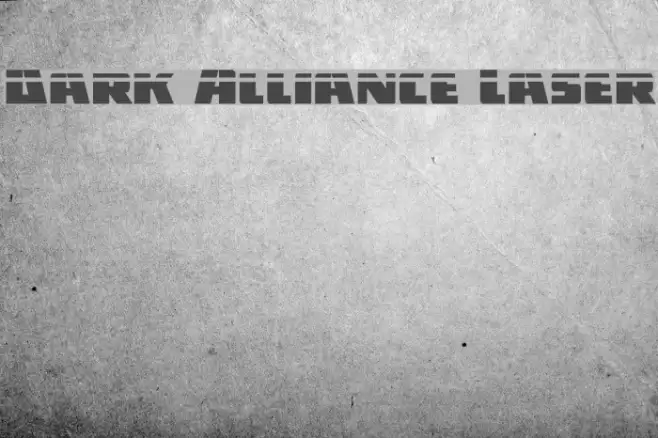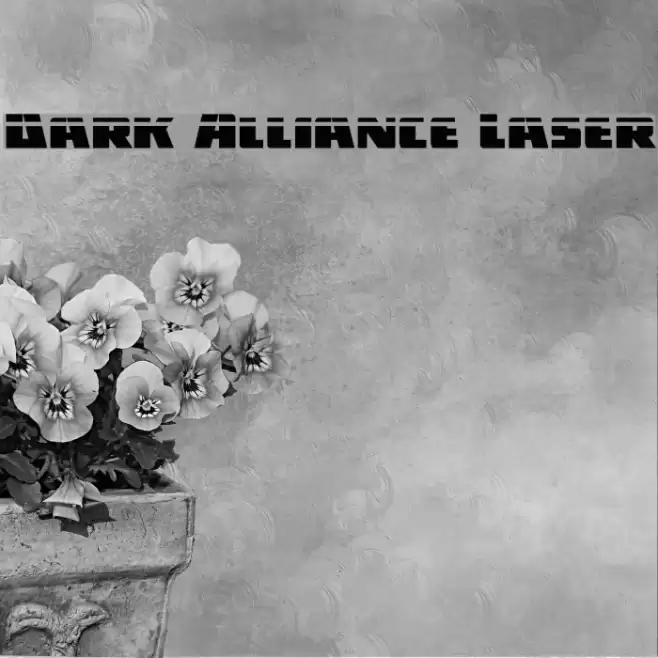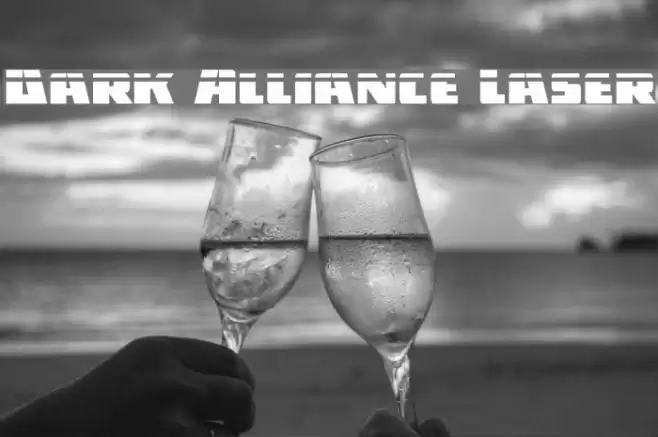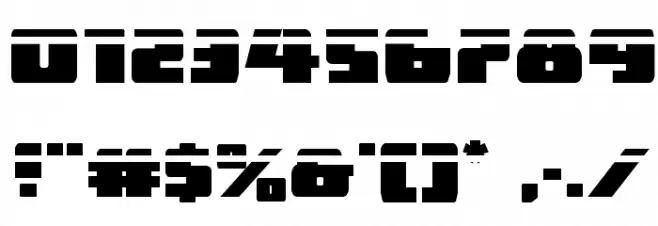
Dark Alliance Laser Font
Dark Alliance Laser Description
This font features a bold, futuristic design with a strong geometric structure. The characters are crafted with sharp angles and a blocky appearance, reminiscent of digital or sci-fi aesthetics. The uppercase and lowercase letters maintain a consistent style, with the lowercase slightly smaller but equally bold. Numbers and special characters follow the same design principles, ensuring uniformity across all glyphs. The font's distinct style makes it stand out, ideal for projects that require a modern and edgy look.
A bold, futuristic font with sharp angles and a geometric structure from Uncategorized fonts.
- Proposed Projects: Ideal for sci-fi themed projects, video game titles, tech branding, and futuristic posters.
- Overall Style: Futuristic